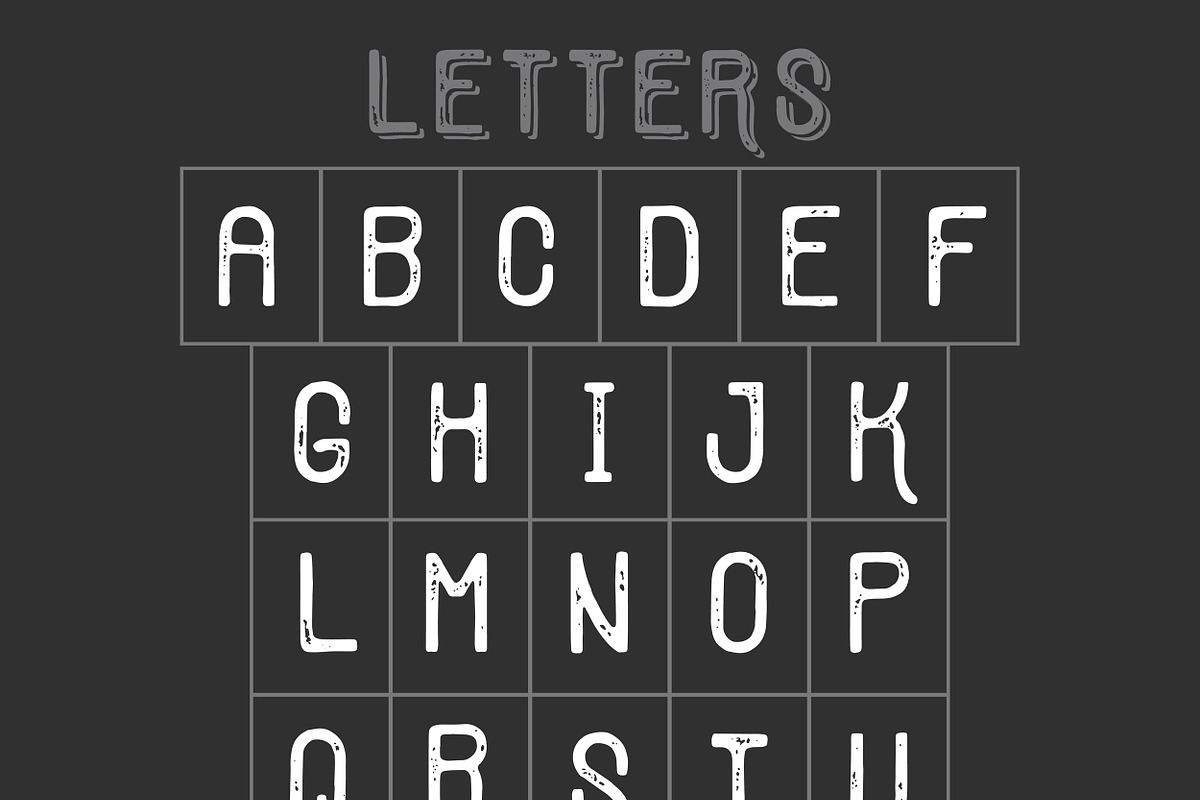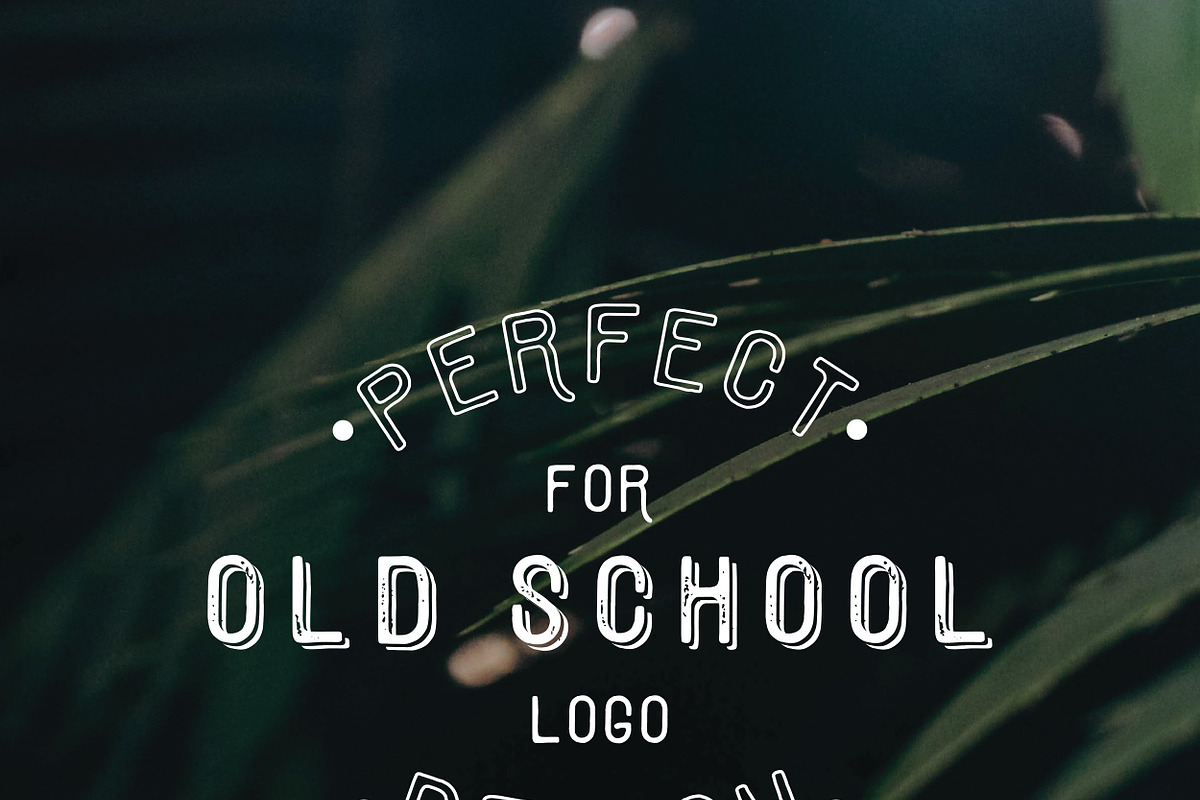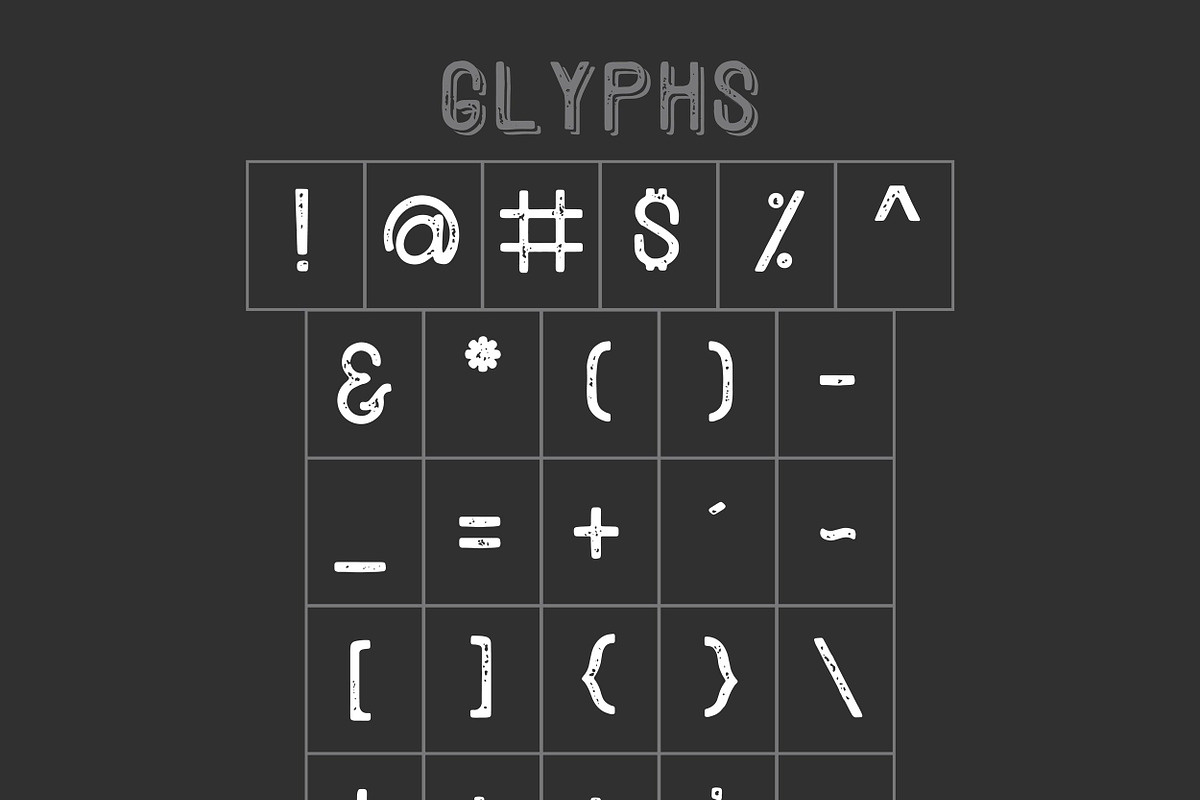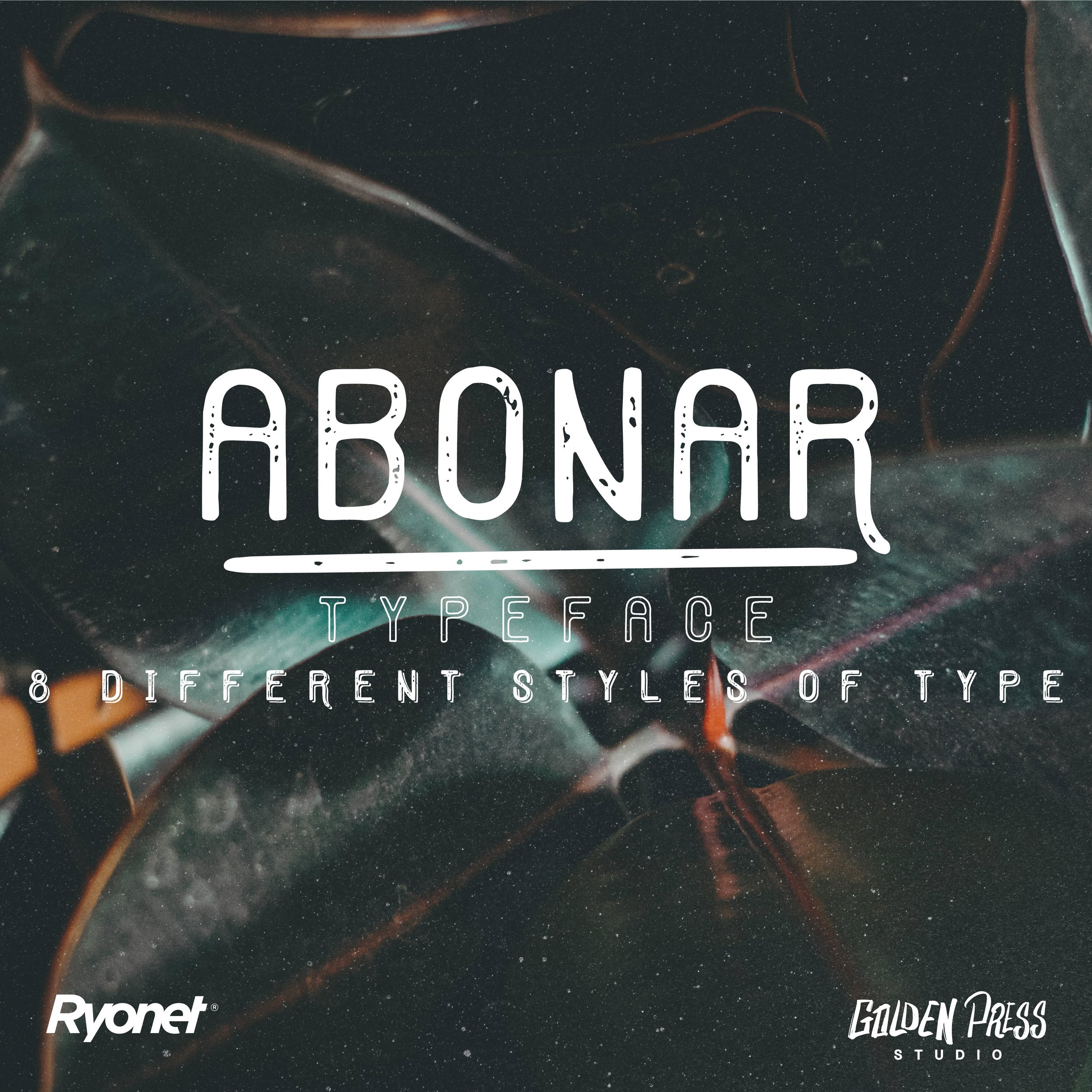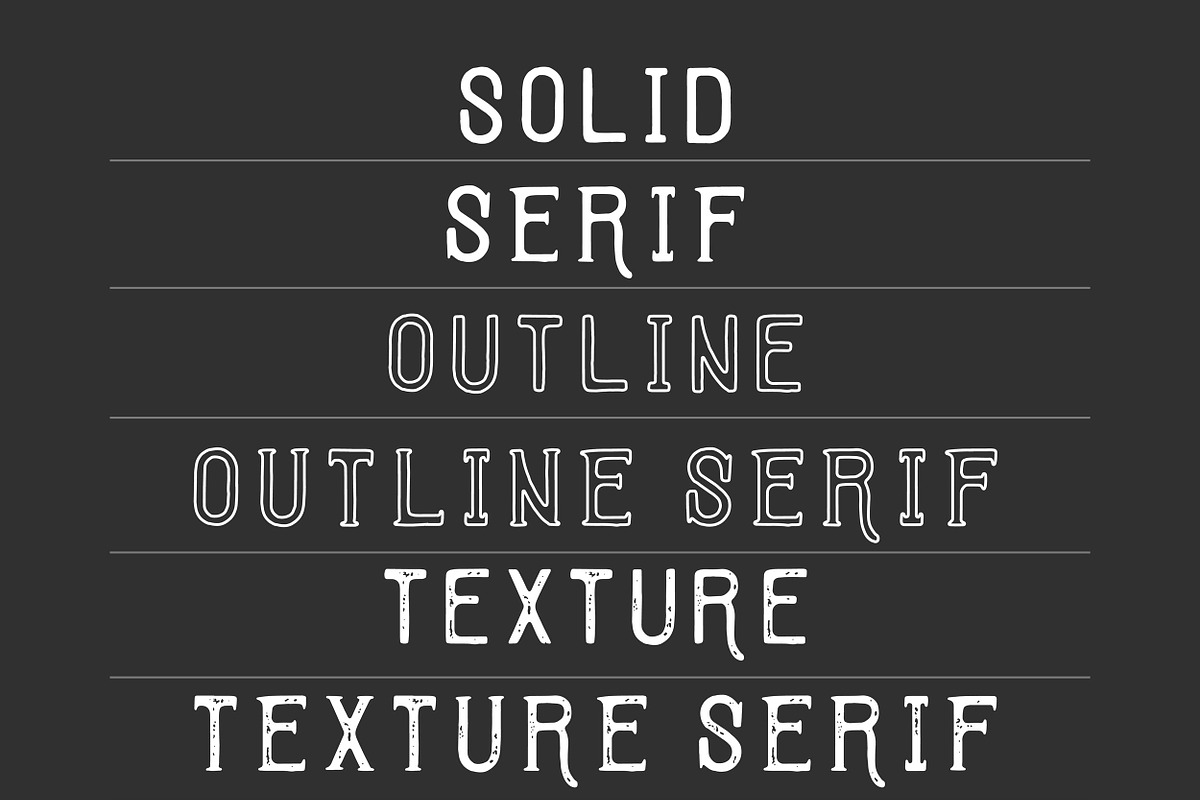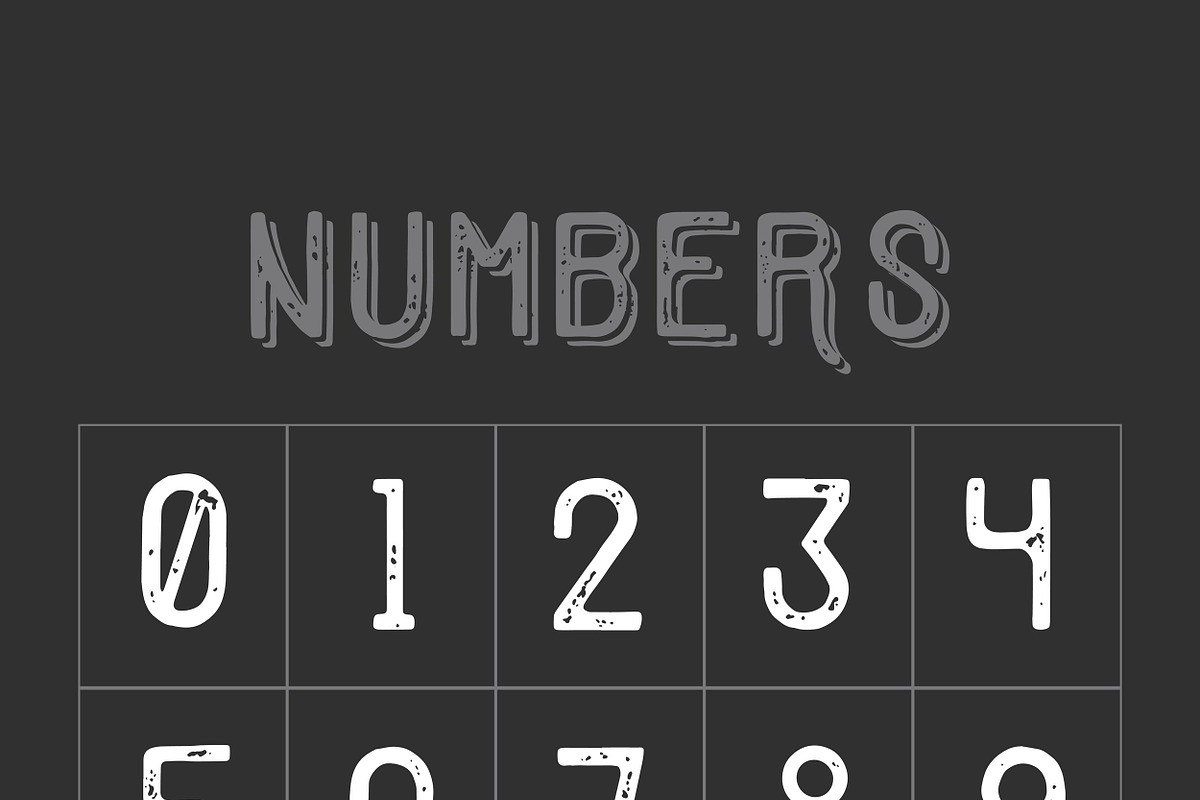
Abonar Font
Abonar is an all caps typeface with a variety of different hand drawn styles. It offers all letters, numbers and symbols found on a keyboard. You have the option between solid, serif, outline, outline serif, texture, texture serif, shadow, and texture shadow. Each letter, number, and symbol was individually hand drawn and uniquely made to fit that old vintage style. With the purchase of this font you are free to use it for personal and commercial use. Download it today!